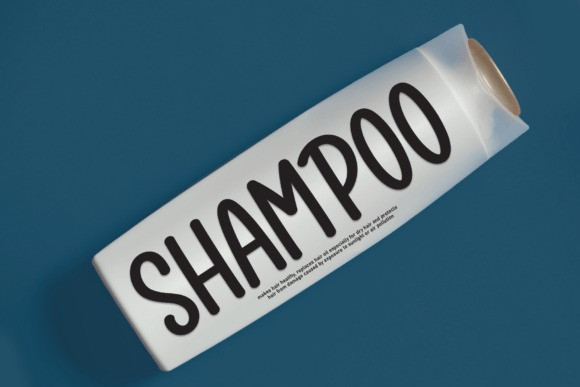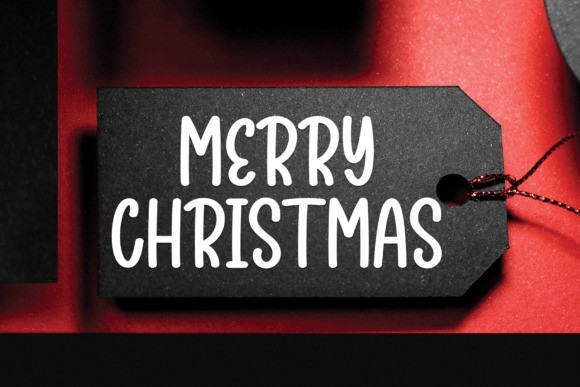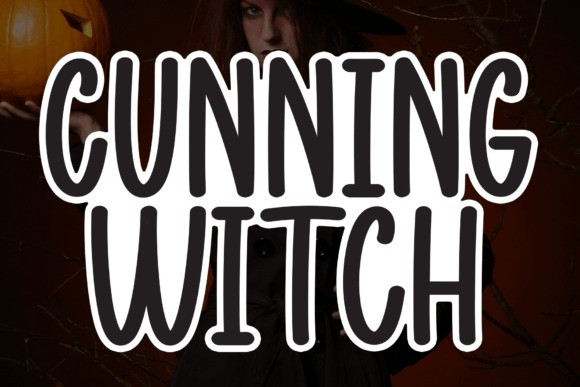
Cunning Witch Font
Cunning Witch Font is a sweet and friendly handwritten display font. Cute and fun, this font is ideal for writing wedding invitations, cards, or any other design that might need a fun touch!